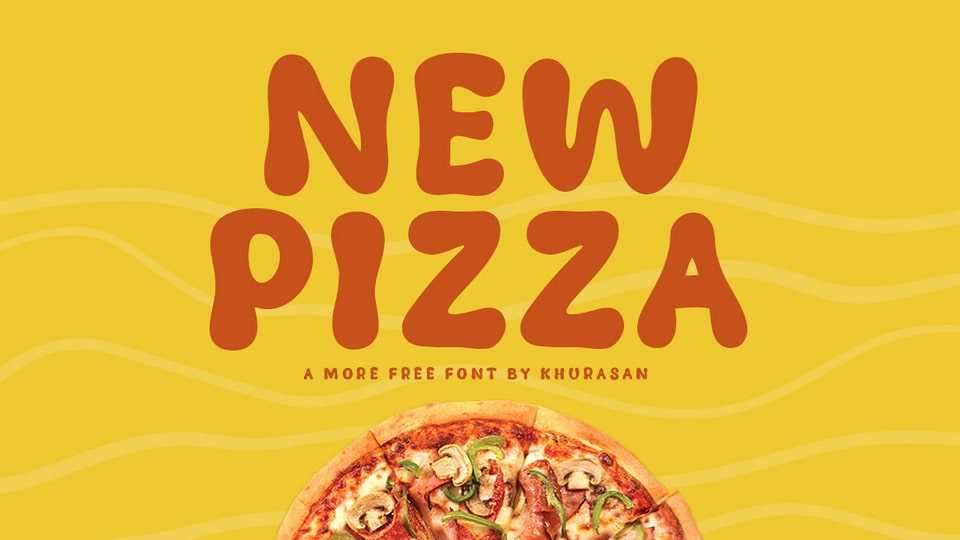
Download New Pizza font, a sweet and smooth hand-drawn typeface that infuses your designs with a gentle touch of warmth and cozy feel. New Pizza features a soft and relaxing design, with each letter exuding a sense of quiet elegance.